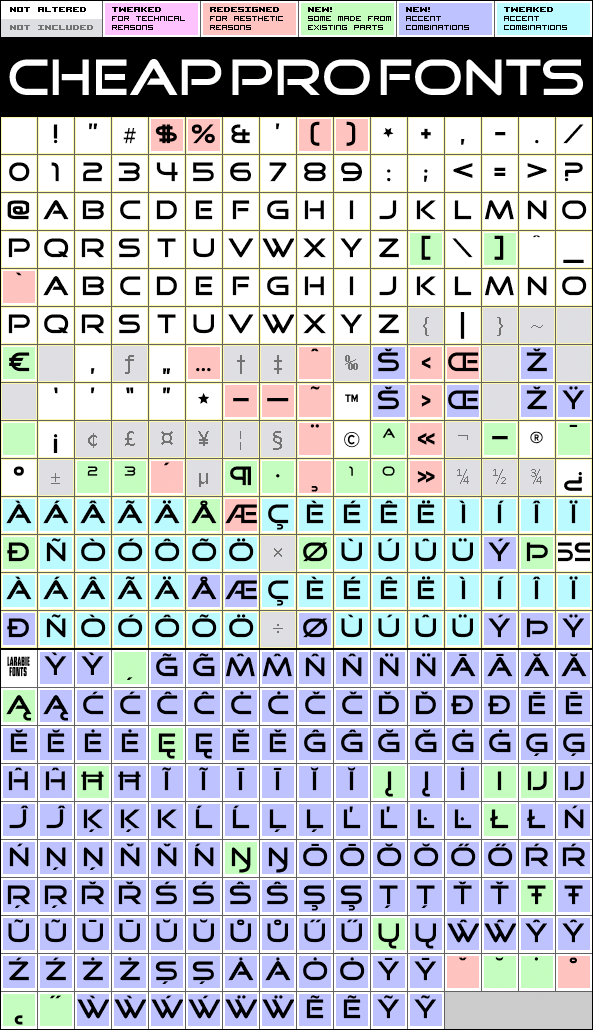
A very clean and stylistic font. Basically just an uppercase alphabet - with all the letters duplicated in the lowercase positions. I have corrected the AE and OE ligatures, and redesigned the diacritics before expanding the character set.
Good Times Pro is a professionally reworked font that contains an extended character set for setting of text in 65 languages requiring more than the basic A-Z!